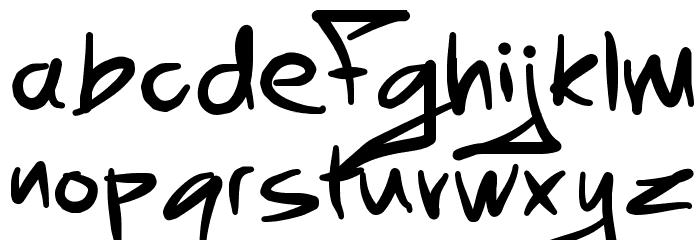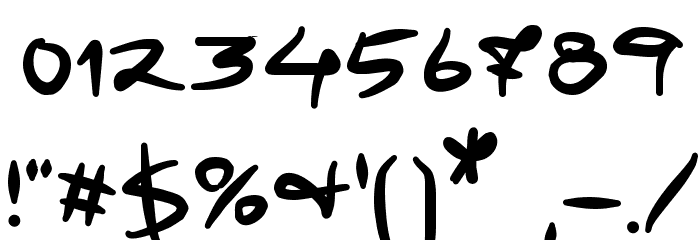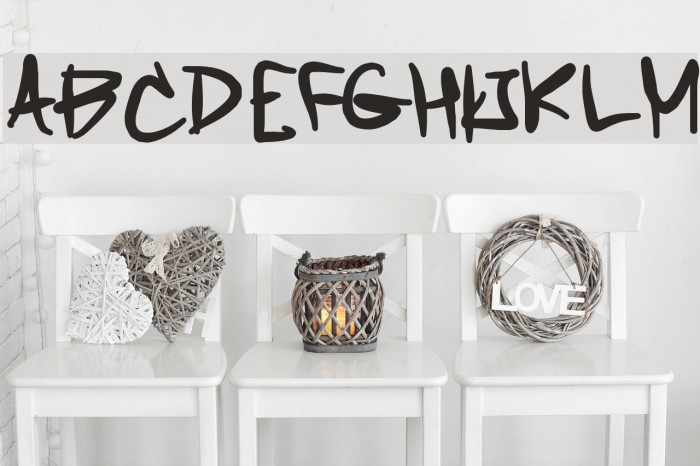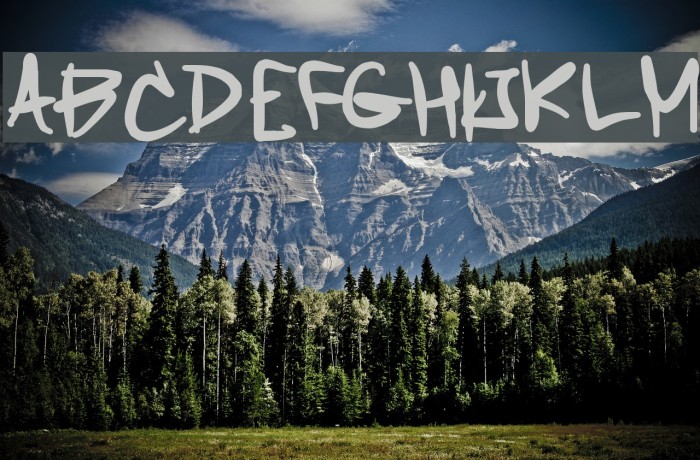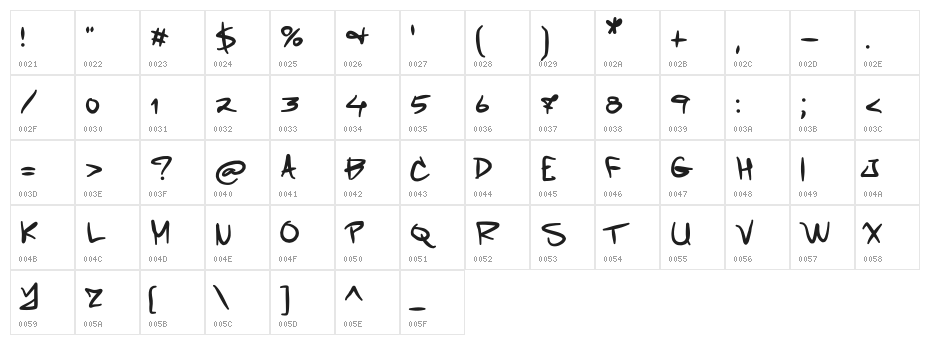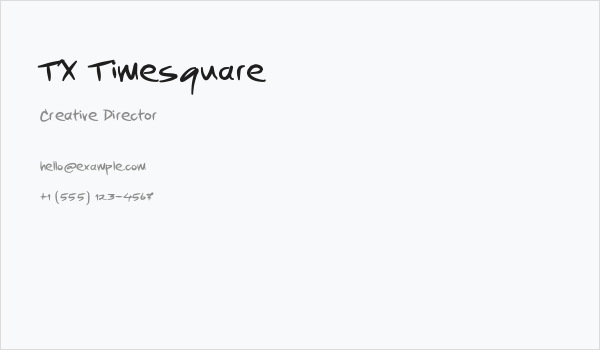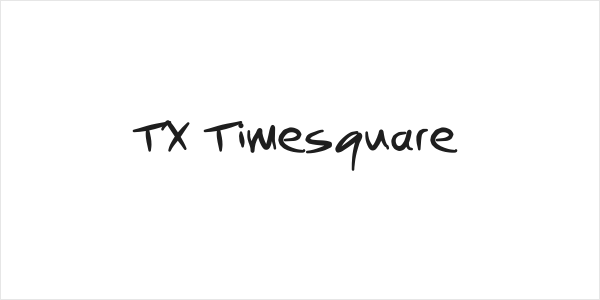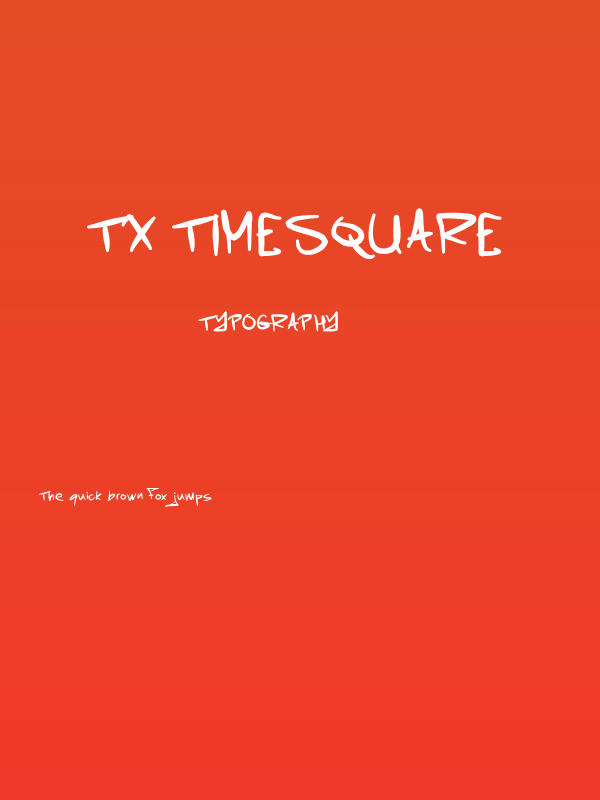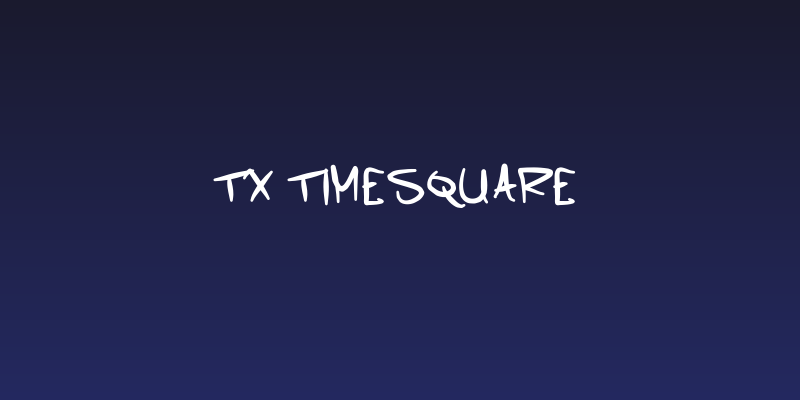
TX Timesquare Font
This font features a bold, handwritten style with a casual and dynamic appearance. The uppercase letters are slightly larger and more pronounced, while the lowercase letters maintain a consistent flow, giving it a lively and informal look. The numbers are clear and easy to read, matching the playful style of the letters. Special characters are creatively designed, adding to the overall whimsical feel. The strokes are thick and slightly irregular, contributing to its energetic and spontaneous character.
A bold, handwritten font with a casual and dynamic style.
- Proposed Projects: Ideal for projects that require a personal touch, such as greeting cards, invitations, or playful branding materials.
- Overall Style: Casual, Playful
- Use Case: Logos, Headlines, Informal Text